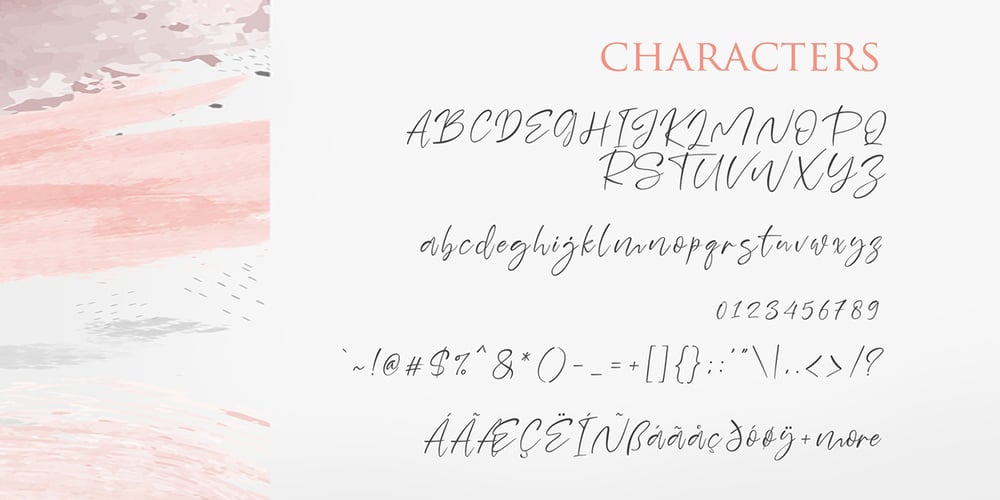
Sheenaz Font Family was designed by Syaf Rizal and published by Khurasan. Sheenaz contains 2 styles and family package options. Sheenaz script is a beautiful handwritten font with a joyful feel. Fall in love with its elegant, yet adorable charm.